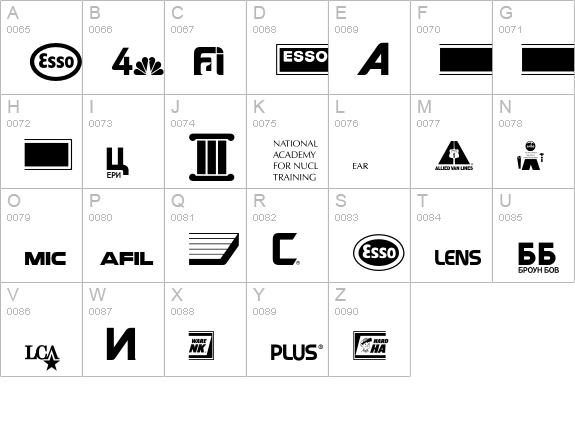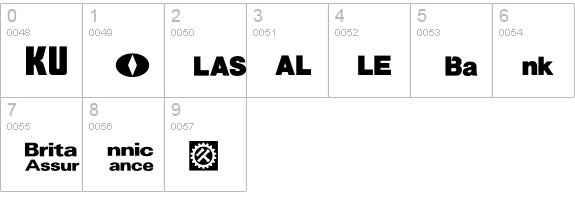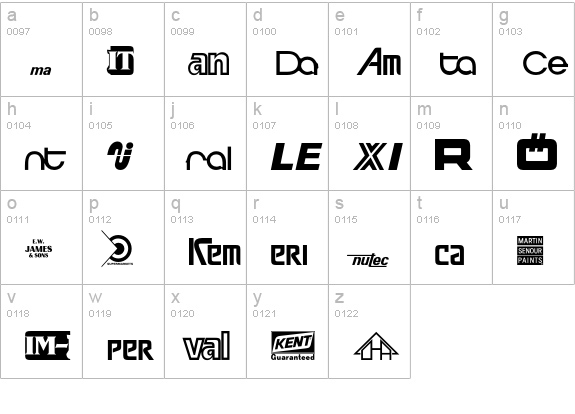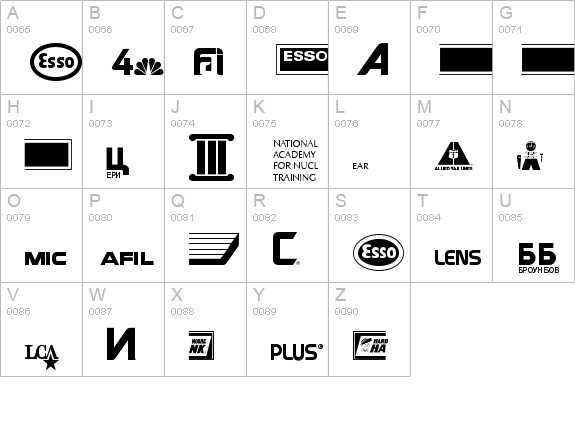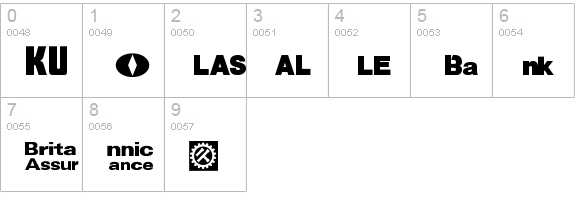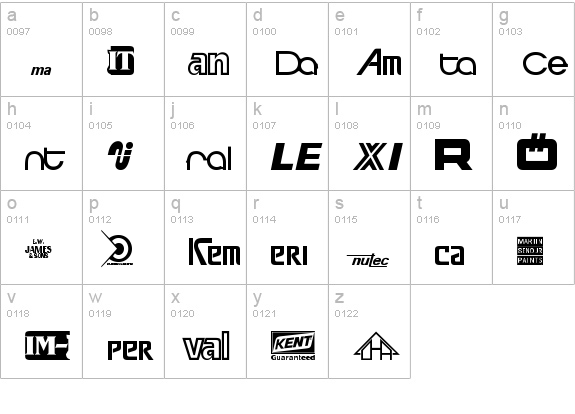
LogosCompanyP22 is a sleek and modern font that exudes professionalism and elegance. With its clean lines and sophisticated design, this font is perfect for a wide range of design projects, from branding and advertising to web design and print materials. The versatility of LogosCompanyP22 makes it a must-have font for any designer looking to elevate their projects to the next level. The best part about LogosCompanyP22 is that it is completely free to download at FontsMarket.com. This means that you can access this high-quality font without breaking the bank, making it a valuable addition to your font library. Whether you're working on a personal project or a client's design, LogosCompanyP22 is sure to impress with its timeless appeal and professional aesthetic. Don't miss out on the opportunity to enhance your design projects with the elegant and stylish LogosCompanyP22 font. Download it for free today at FontsMarket.com and take your designs to new heights!